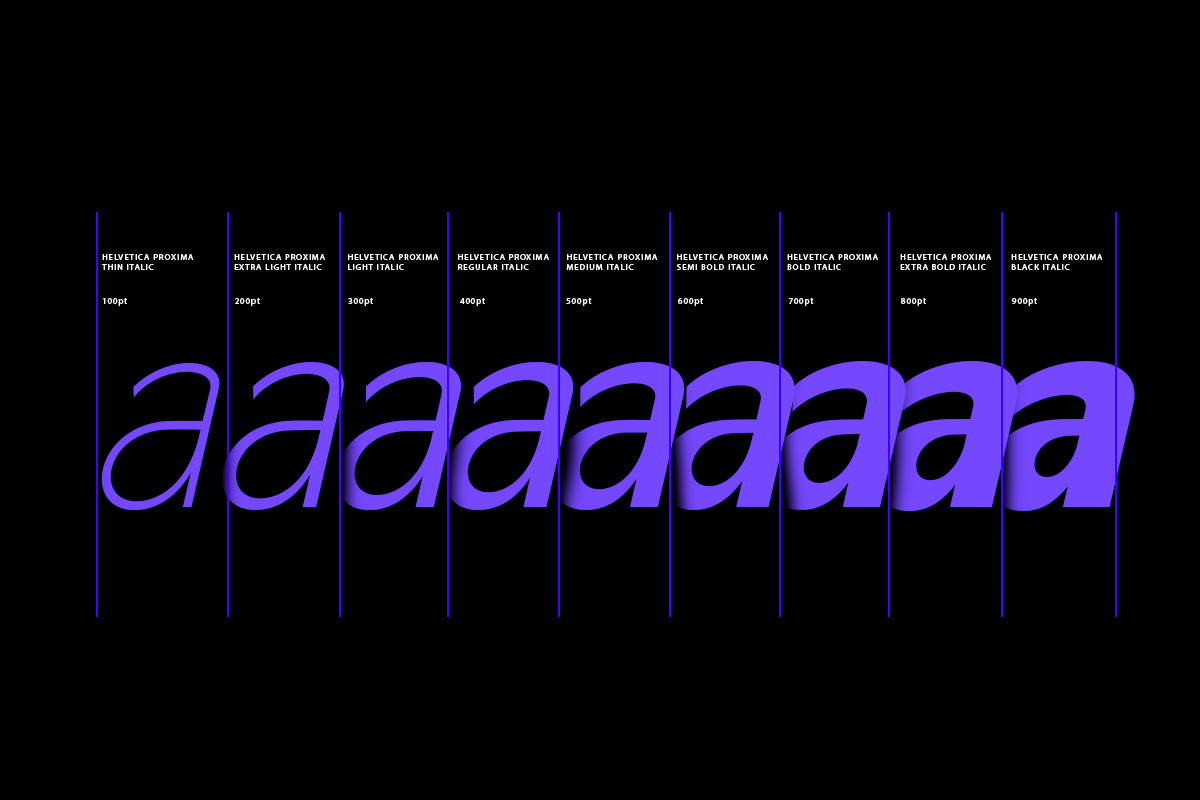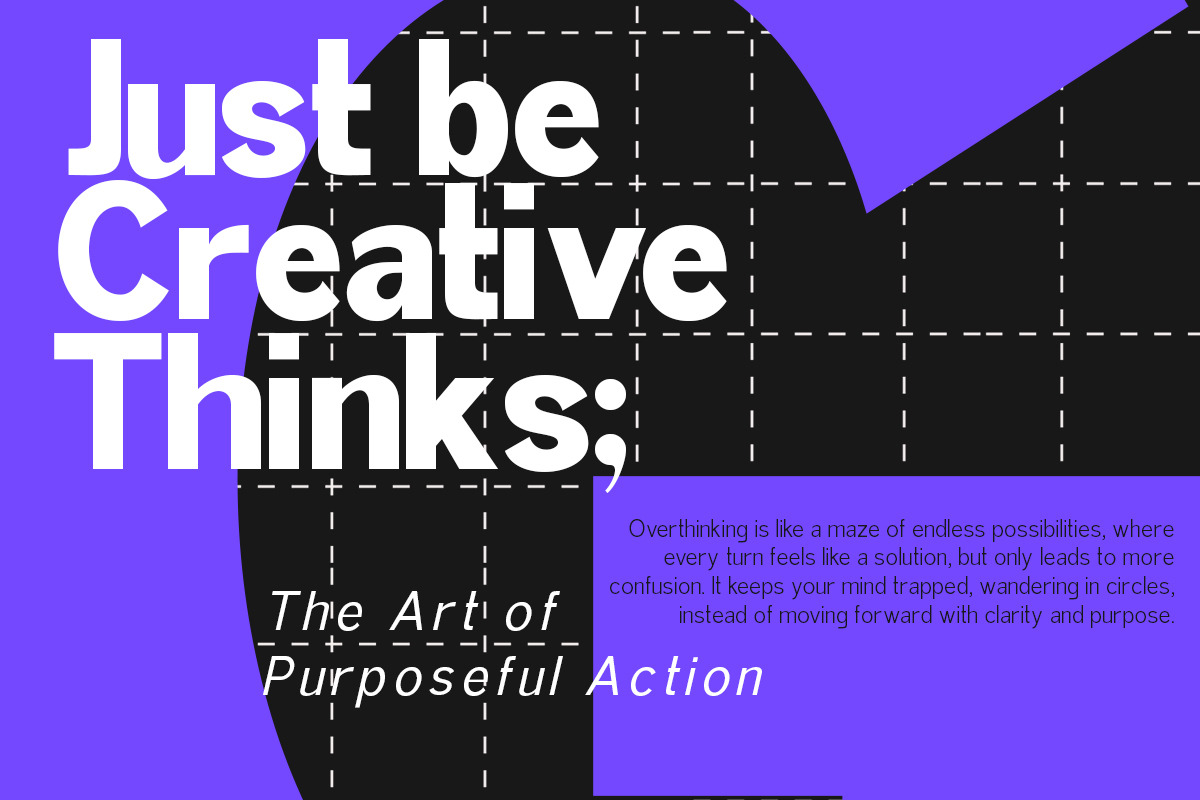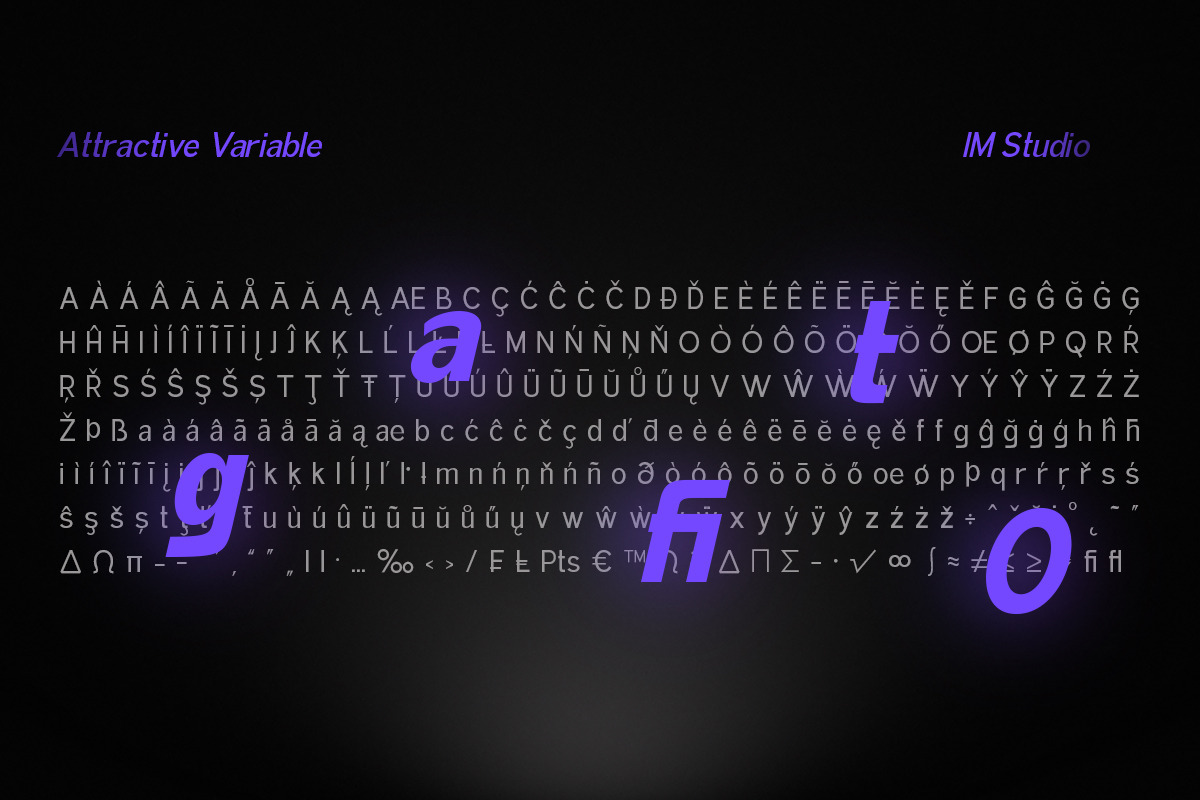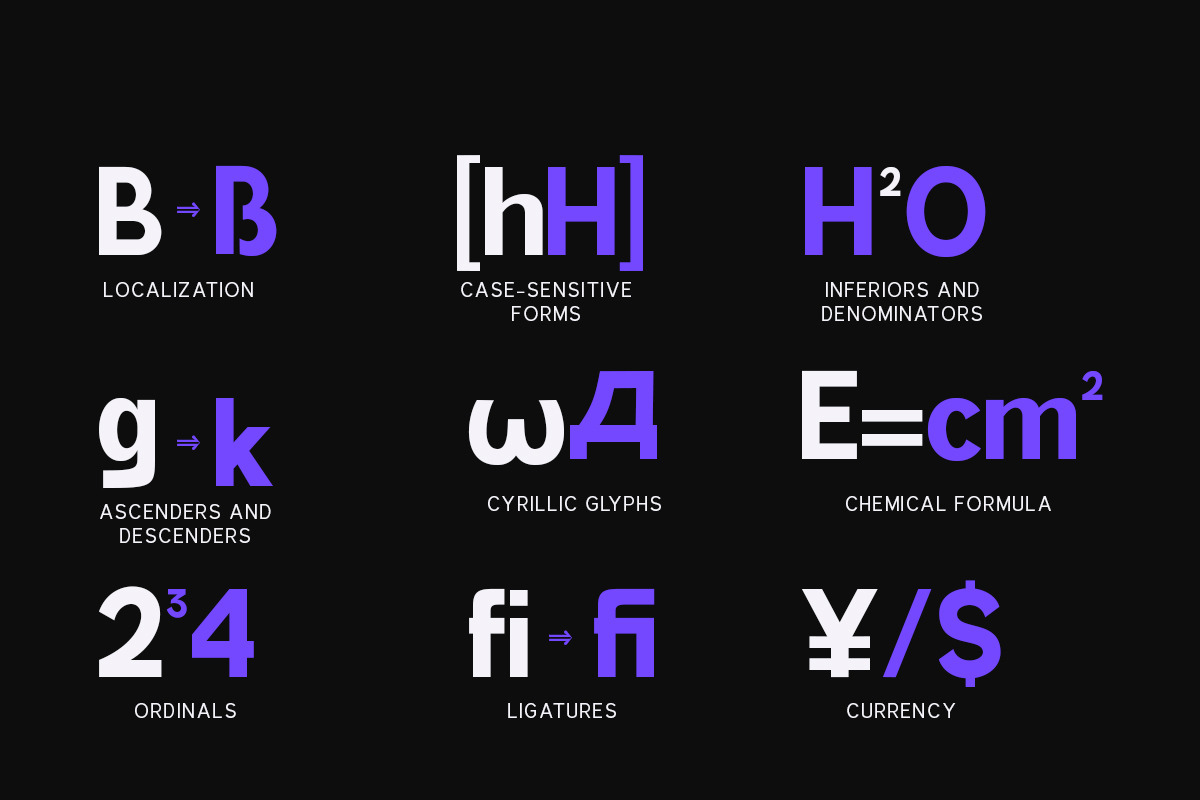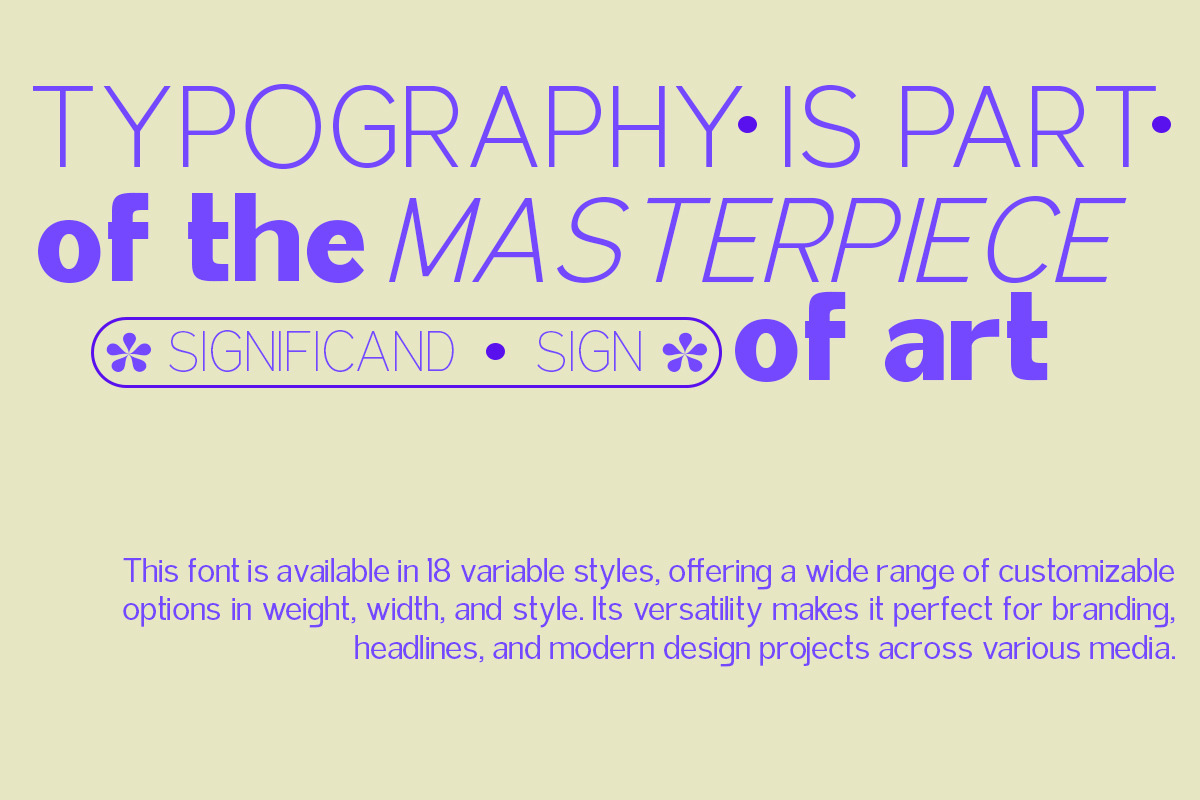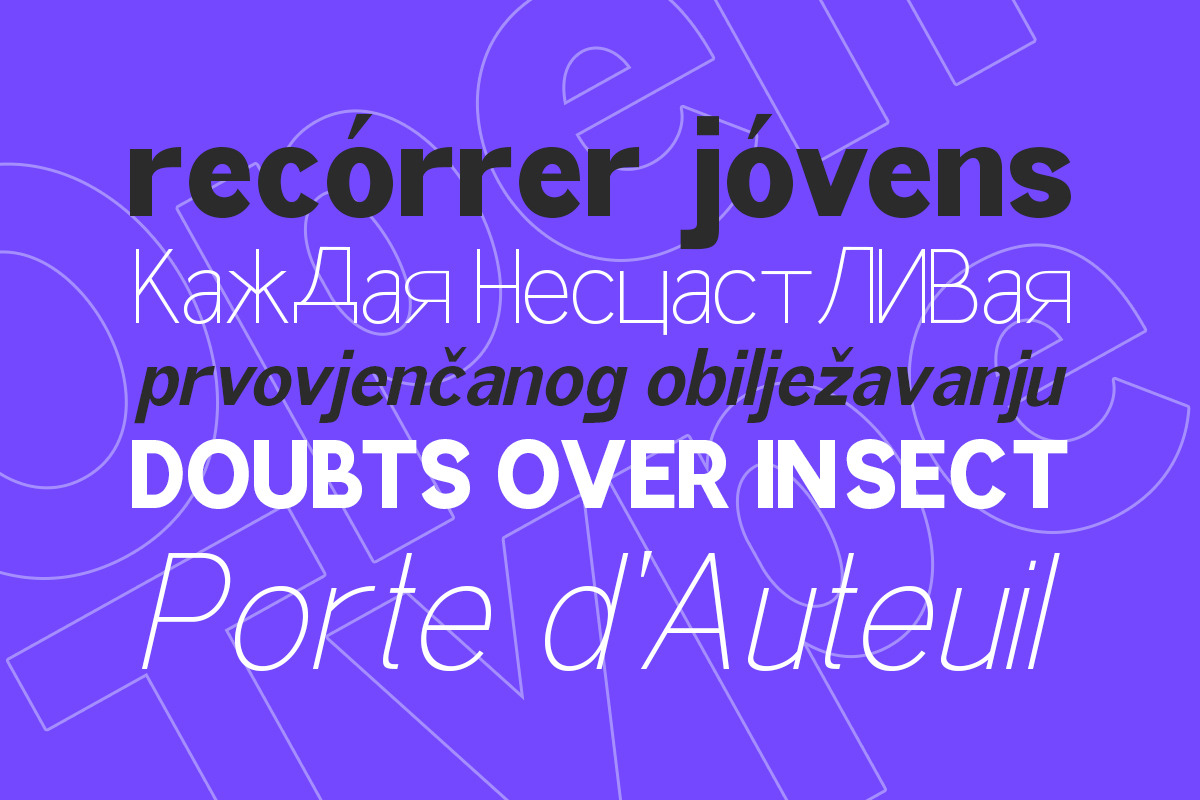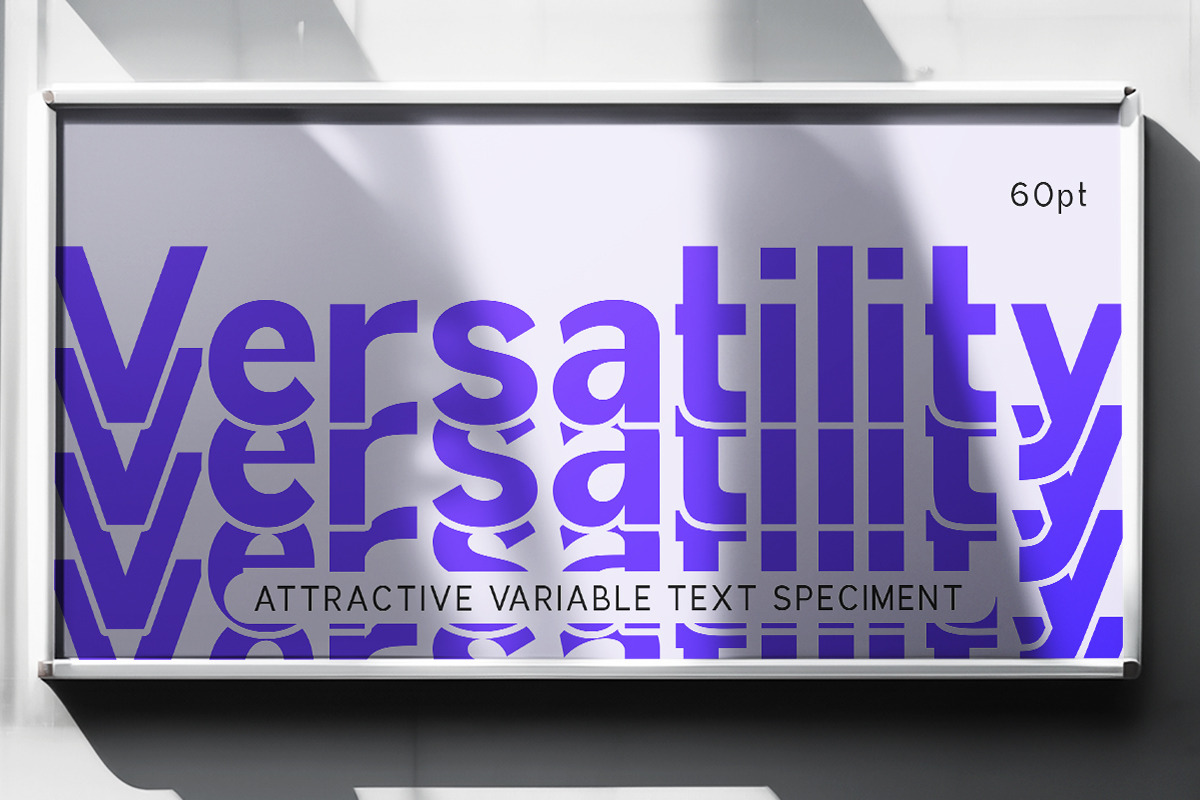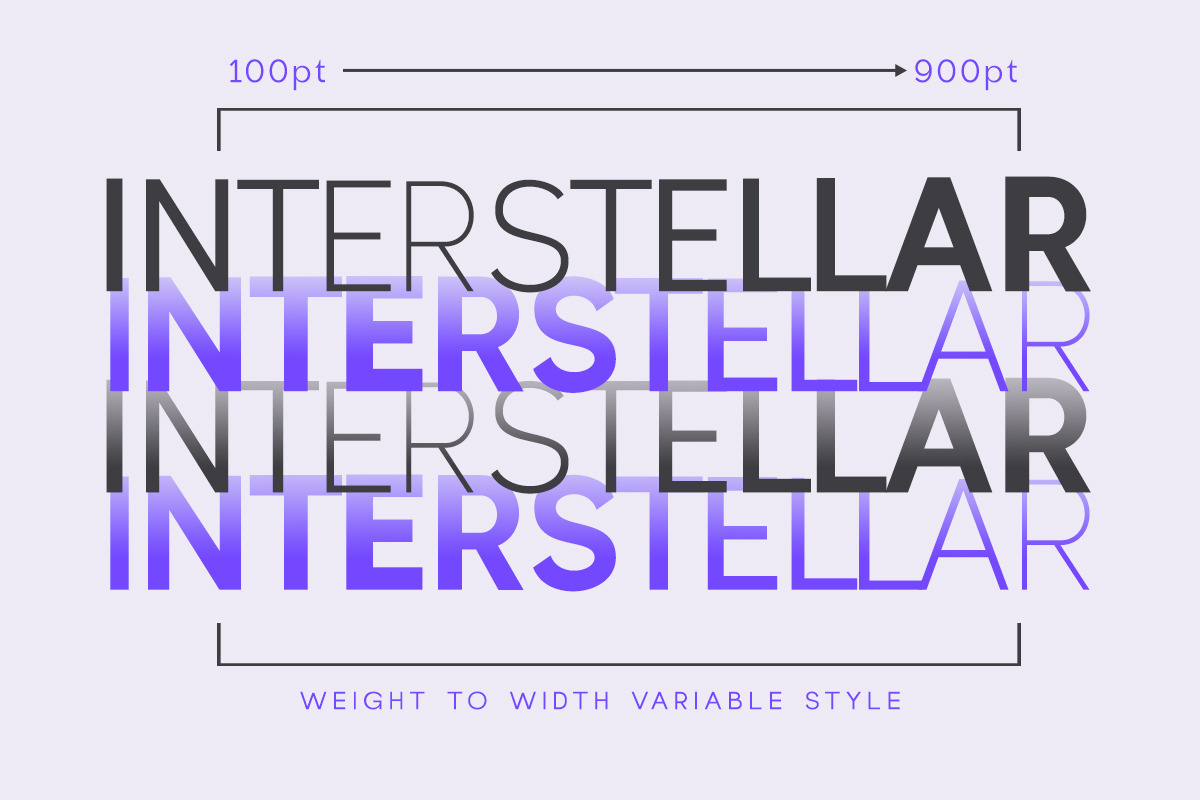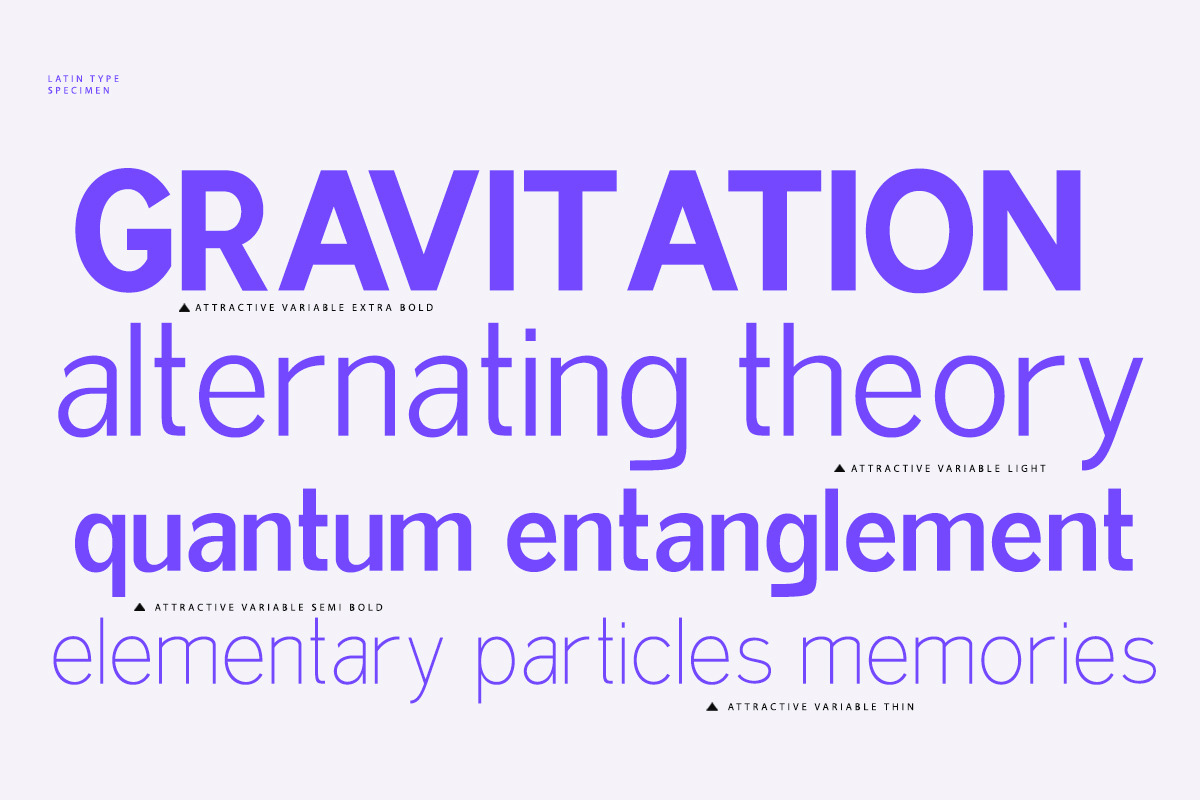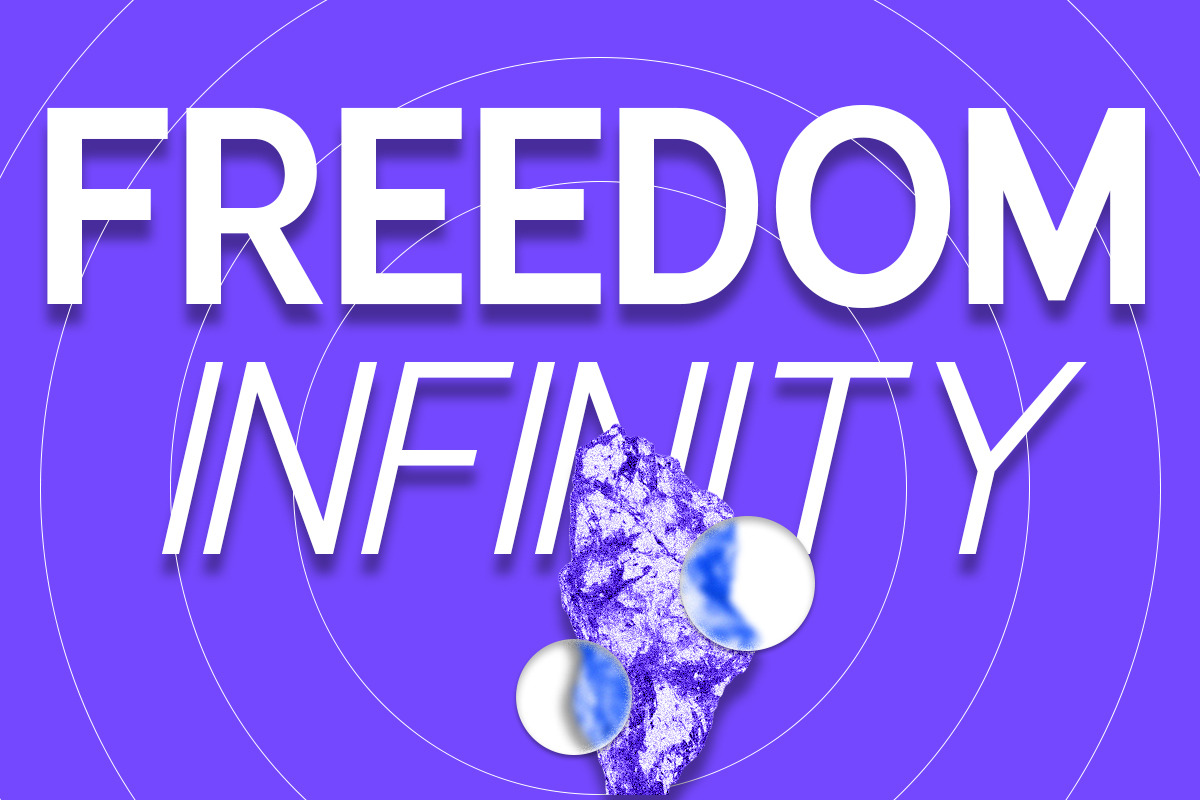
Attractive Variable (18 Fonts)
Attractive Variable is a modern sans serif with a geometric twist. It comes in 18 weights, 9 perpendiculars, and a matching italic. Designed with advanced open type features in mind. Each weight includes extended language support (+Cyrillic), fractions, table images, arrows, ligatures, and more. It is perfect for any graphic design and display use. It can easily be used for web, signage, corporate, and editorial design and more.